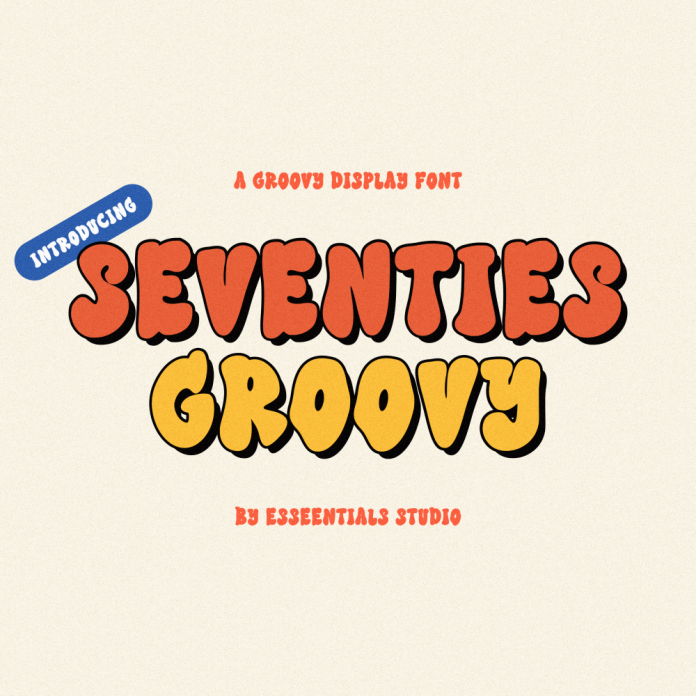
Seventies Groovy is a two-style retro Groovy Font. best for feminine crafty projects or SVG design businesses, Wedding Craft, Farmhouse decor and Crafts, logos, Branding, Marketing Materials, Social media graphics, or shirt design. This font come with heart connect and swash includes - upper + lowercase characters A-Z and a-z - numbers 0-9 - punctuation - Western European Language Support